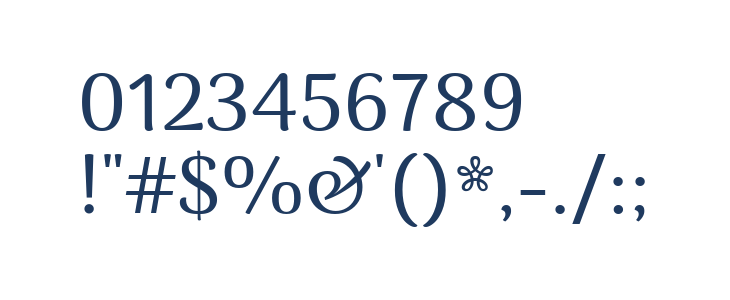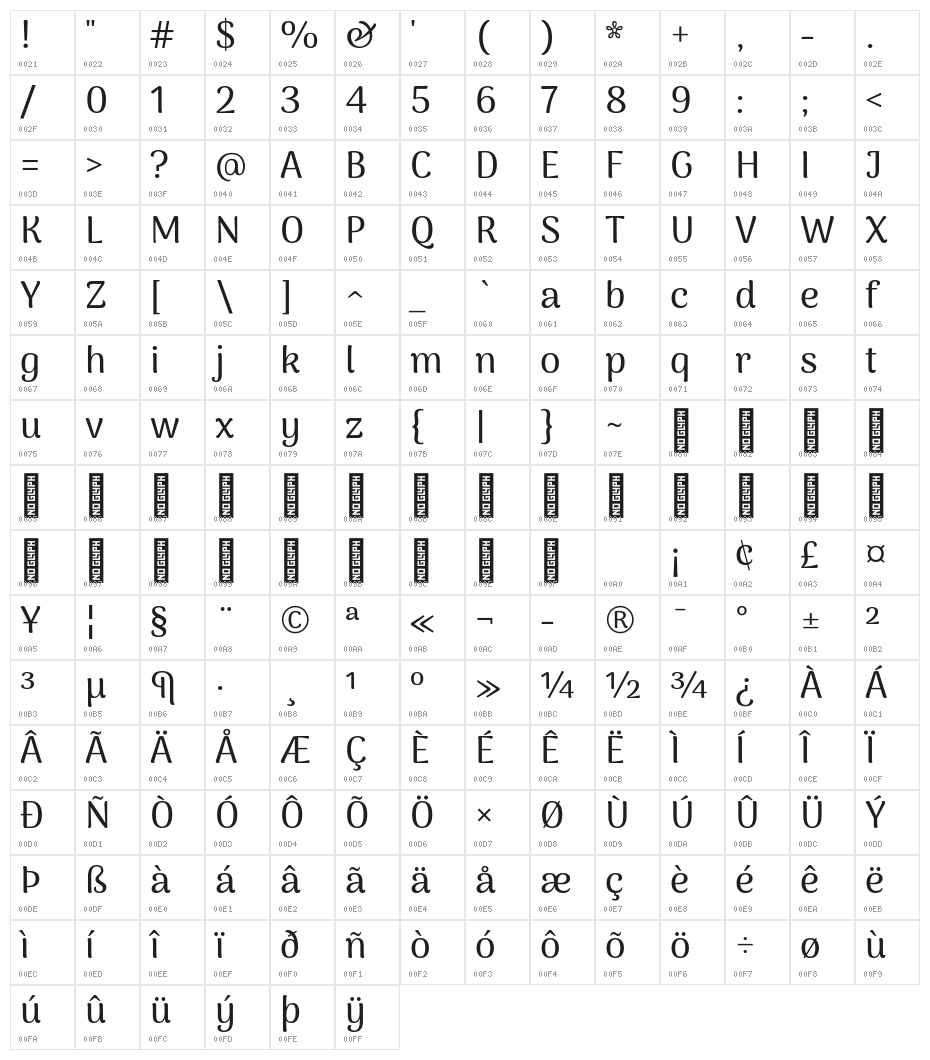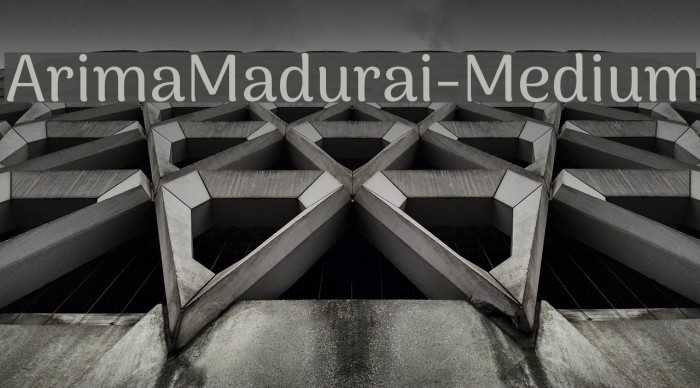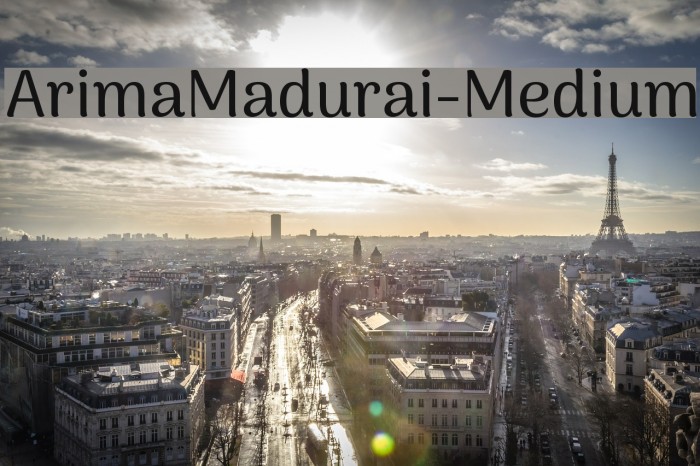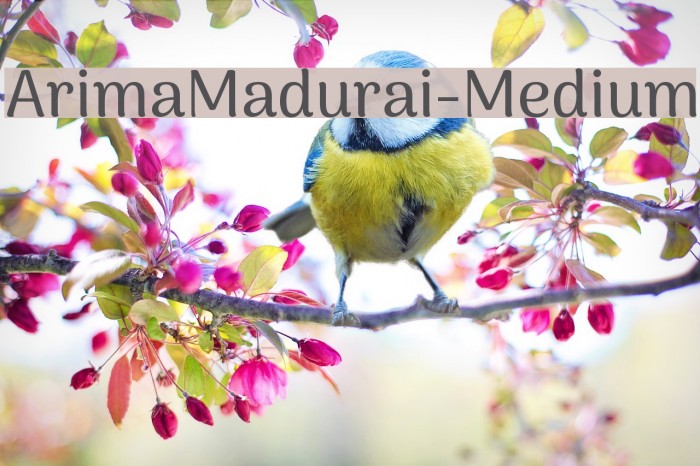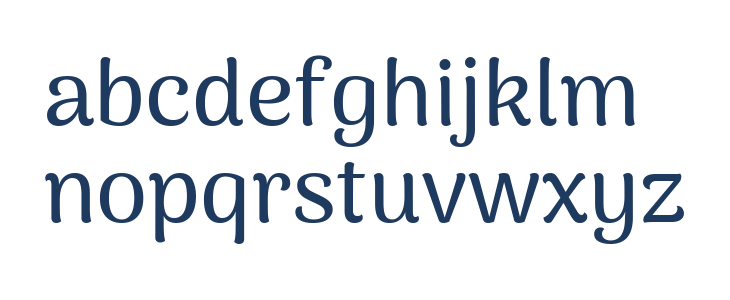
ArimaMadurai-Medium Font
ArimaMadurai-Medium Description
This font features a clean and modern design with a subtle elegance that makes it versatile for various applications. The characters are well-balanced with a consistent stroke width, offering a harmonious appearance. The uppercase letters are slightly taller than average, providing a sense of authority and presence. The lowercase letters are rounded and approachable, contributing to the font's friendly and inviting look. The numerals are clear and easy to read, making them suitable for both digital and print media. Special characters are thoughtfully designed, maintaining the overall aesthetic of the font.
| Proposed Projects | Ideal for branding, advertising, web design, and editorial projects. |